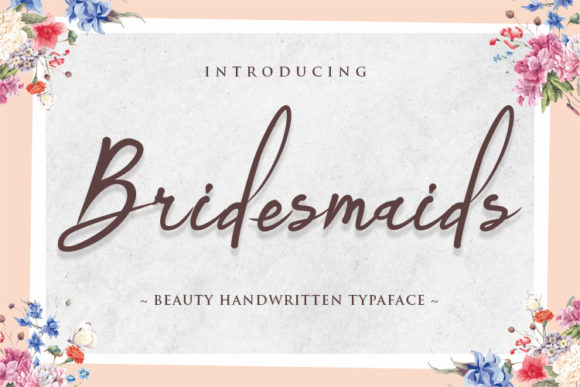
The Bridesmaids Font: A Timeless Choice for Creative Projects
I’ll never forget the time I was working on a wedding invitation design project, and my client asked for a font that was ” elegant, yet playful, and uniquely handwritten.” I scoured the internet, tried out countless fonts, but nothing seemed quite right. That was until I stumbled upon the Bridesmaids font. ✨ It was love at first sight! The delicate, cursive strokes and whimsical feel instantly captured the essence of the wedding celebration. In this article, I’ll share my experience with the Bridesmaids font, its features, and how to make the most of it in your designs.
An Honest Review of Bridesmaids Font
• ✨ Delicately crafted, handwritten aesthetic that adds a touch of elegance to any design
• ✅ Highly versatile, suitable for wedding invitations, thank you cards, quotes, greeting cards, logos, and more
• ✅ Easy to read, even in smaller font sizes
• ✨ Beautifully crafted to evoke a sense of nostalgia and romance
While the Bridesmaids font is exceptional, there are a few minor considerations to keep in mind:
• ⚠️ May not be the best choice for very formal or traditional designs, as it has a more whimsical feel
• 🤔 Limited availability of stylistic alternates, which may limit its use in certain design contexts
The Story Behind Bridesmaids Font
The Bridesmaids font was designed with love and care by a talented type designer who wanted to create a font that captured the essence of wedding celebrations. Inspired by classic handwritten fonts, the designer crafted a unique and timeless font that’s perfect for wedding invitations, cards, and more.
Font Name Bridemaids Font
Author MaknaStudio
Q: What is the Bridesmaids font best used for?
A: The Bridesmaids font is ideal for wedding invitations, thank you cards, quotes, greeting cards, logos, and any other design that requires a delicate, handwritten touch.
Q: Is the Bridesmaids font available in different styles or weights?
A: The Bridesmaids font is available in a single style, but its delicate and elegant design makes it versatile enough to work well in various design contexts.